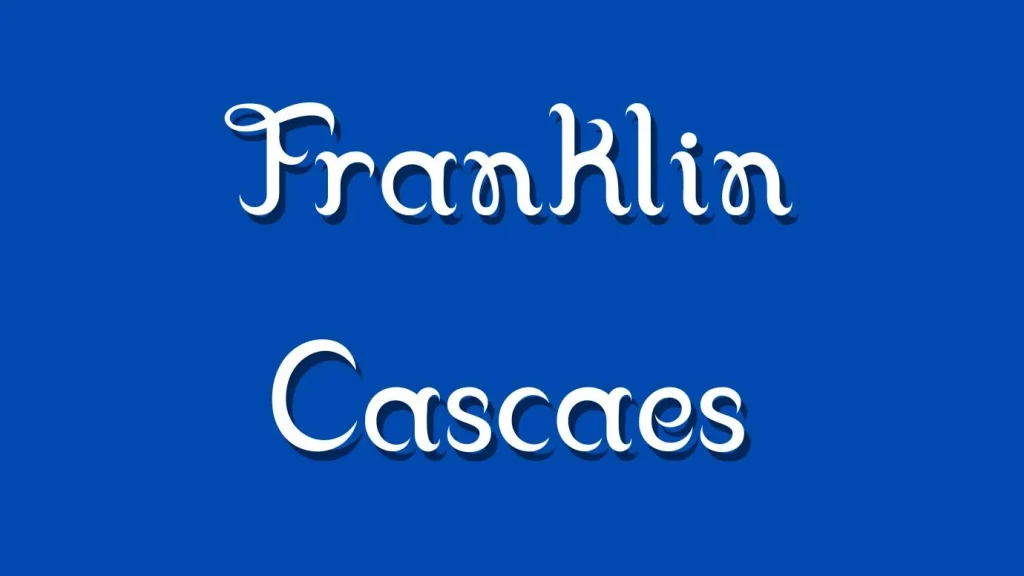
Franklin Cascaes Font style is a contemporary, premium typeface that is a member of the fancy font family. There are 94 characters in this wonderful design, including capital and lowercase letters, numerals, punctuation, and two special characters.
It works well with more formal calligraphy designs. In addition to adding a variety of font families, the font has the perfect copy-and-paste feature. It has some really fascinating characteristics.
This typeface is ideal for use in logo designs, poster painting designs, trademark designs, card designs, and other related design projects. This fantastic typeface may be used for amazing logo designs, poster designs, social media post designs, and commercials.
This typeface is appropriate for official paperwork, gaming video designs, text overlays, resume designs, invoice designs, and note designs. This contemporary typeface can be used for product packaging, eBook covers, and postcard designs. This typeface works well for watermark designs.
Designer Mitsue Yanai
The typeface can be used for a range of tasks, such as product names, company names. The font is also perfect for graphics, website layouts, blog styles, and a variety of other patterns.
Because of its attractiveness and interesting motifs, the typeface is perfect for use in a professional tattoo design. When designing window apps, the design is the best option for all types of layouts.
This typeface is appropriate for elegant letters and gives them a sharp look. This unique font can be used for a variety of challenging preparations, including remarkable caps, beautiful glyphs, great blurbs, billboards, games, and many other things.
This typeface’s characters highlight a particular design that demonstrates their skill after using it in a professional setting. It may also be used to create elegant designs, which are ideal for many designers to use in their artwork, among other things. This contemporary typeface can be used for newspaper text designs and text-style collections.
A similar font of this typeface is sonic font. It has an amazingly stylish and modern typeface style.
This typeface is a contemporary, premium typeface that is a member of the fancy font family. It works well with more formal calligraphy designs. In addition to adding a variety of font families,